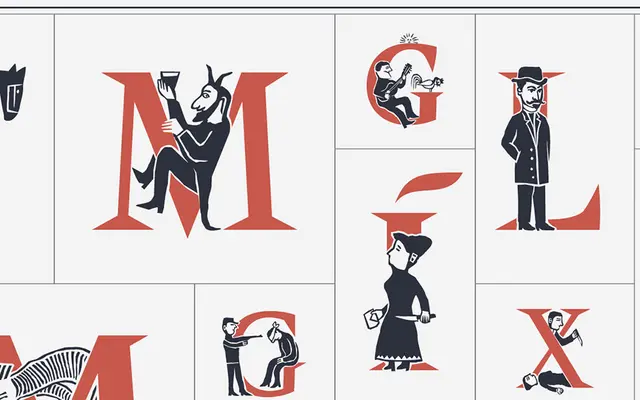
Amster Versal Iluminada
Pampatype · Francisco Gálvez Pizarro · 2014
A single-font set of elaborately illuminated capital letters drawn from Chilean vernacular printed news sheets of the late 19th century.
Each capital letter contains a miniature scene populated by animals, farmers, priests, devils and drunkards, drawn from the tradition of Chilean vernacular broadsheets. The family is a companion to Amster, Pampatype's transitional serif, and was programmed by Guido Ferreyra to function as layered fonts. Recognised at the Tipos Latinos Biennale in both 2008 and 2014, it suits poetic and editorial contexts where an illustrative, historically grounded initial is called for.
A set of decorative, multi-layered capital letters designed as illuminated initials, placing it firmly in the display category with no running text function. The ornamental, illustrative character of each glyph puts it closer to decorative display than any standard serif or script classification.